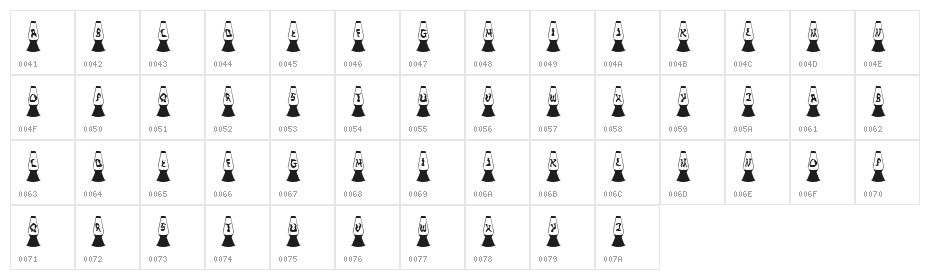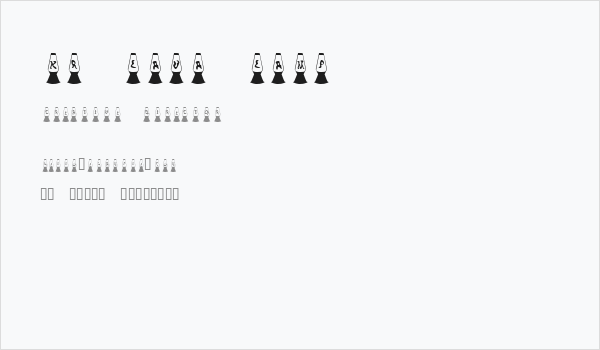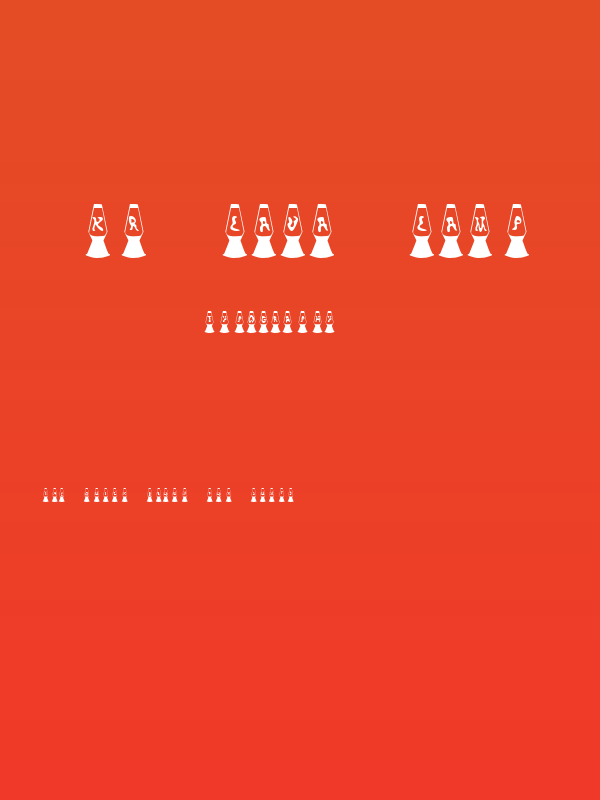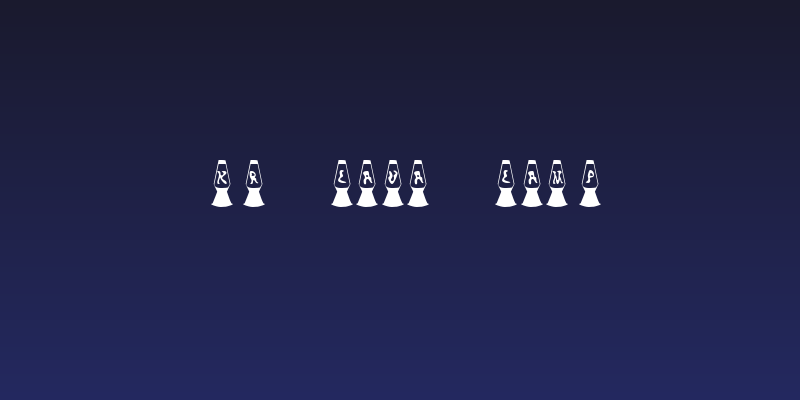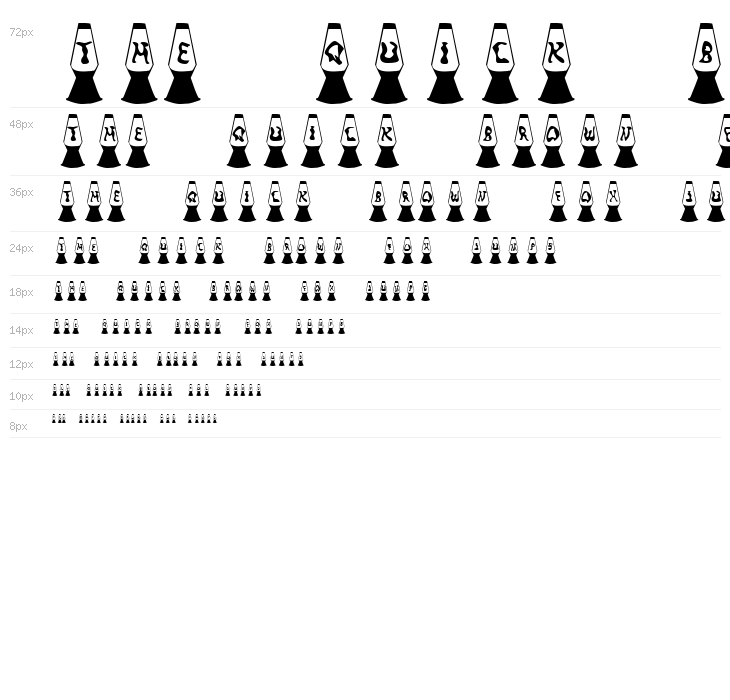
KR Lava Lamp Font
KR Lava Lamp Description
This playful and whimsical font is inspired by the iconic shape and movement of a lava lamp. Each character is encased within a lava lamp silhouette, with the letters themselves appearing as if they are fluid, shifting forms inside the lamp. The design is bold and eye-catching, with a unique blend of retro and modern aesthetics. The characters are evenly spaced within their containers, creating a uniform appearance despite the organic shapes of the letters. This font is perfect for projects that require a fun, nostalgic touch, such as event posters, party invitations, or themed branding.
| Overall Style | Retro, Playful |
| Proposed Projects | Ideal for event posters, party invitations, themed branding, and retro designs. |